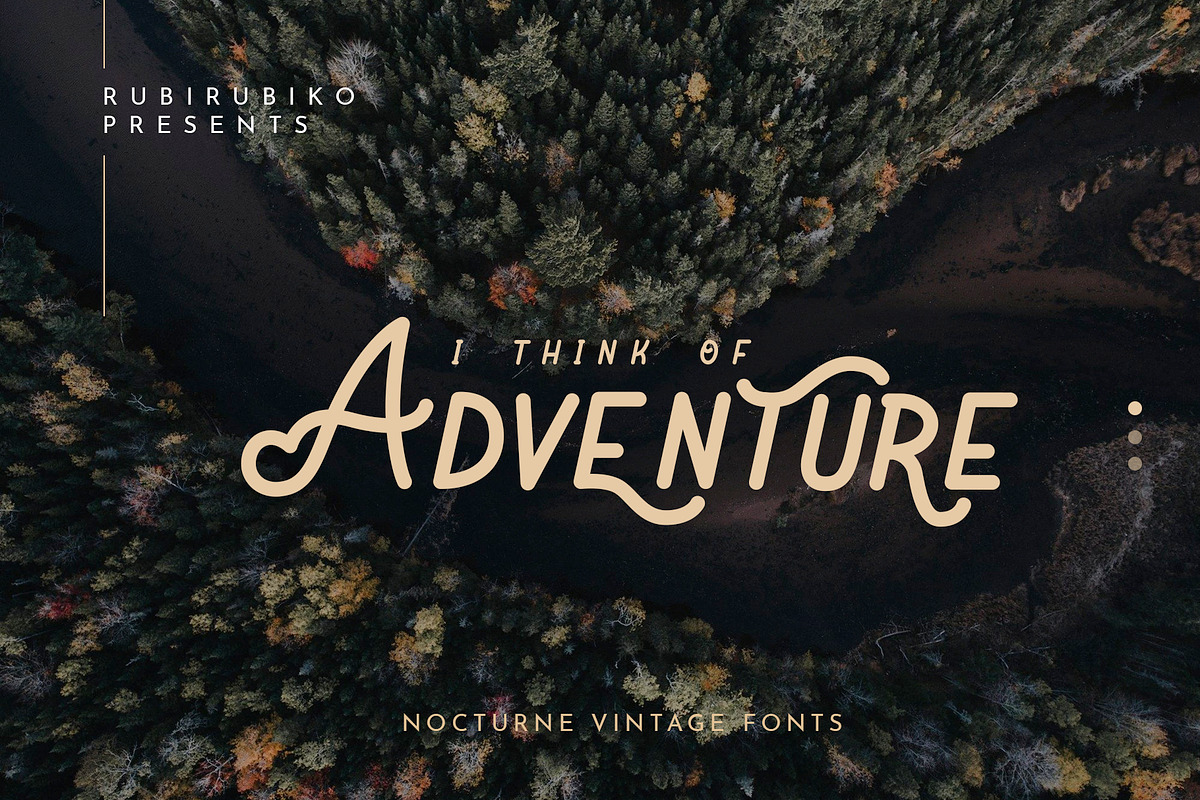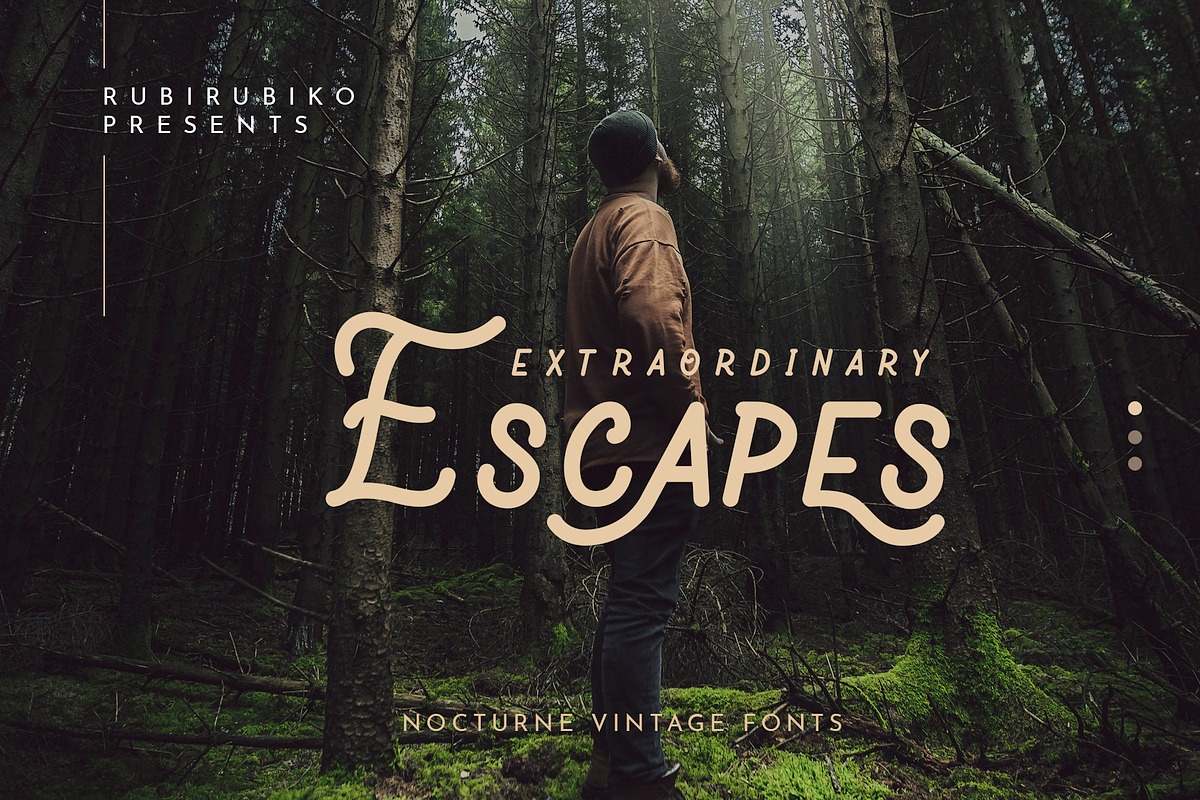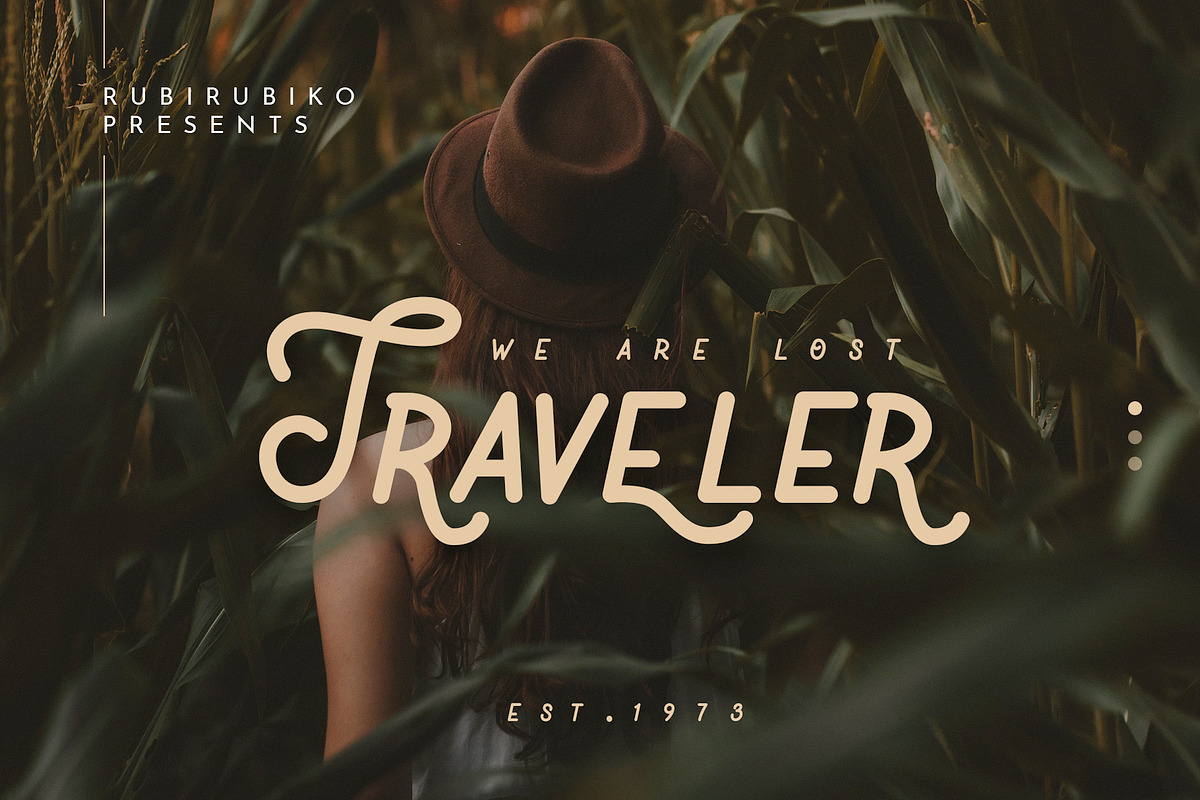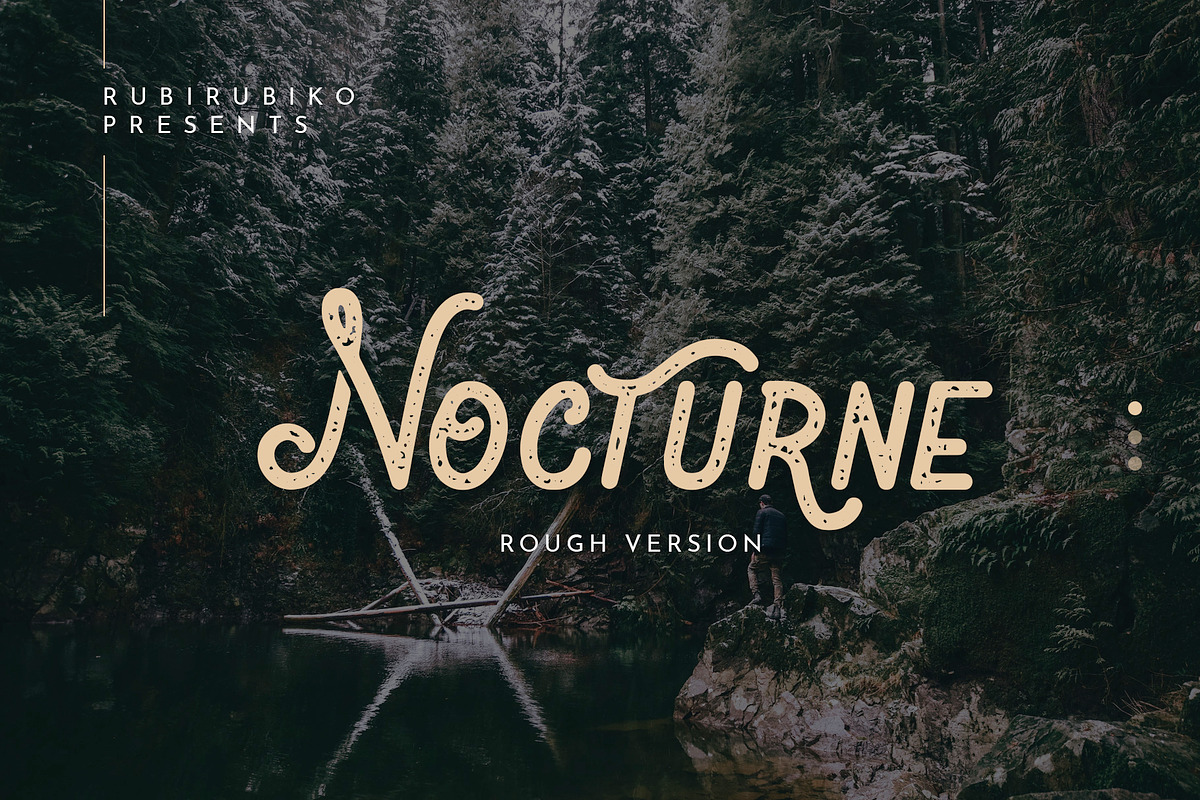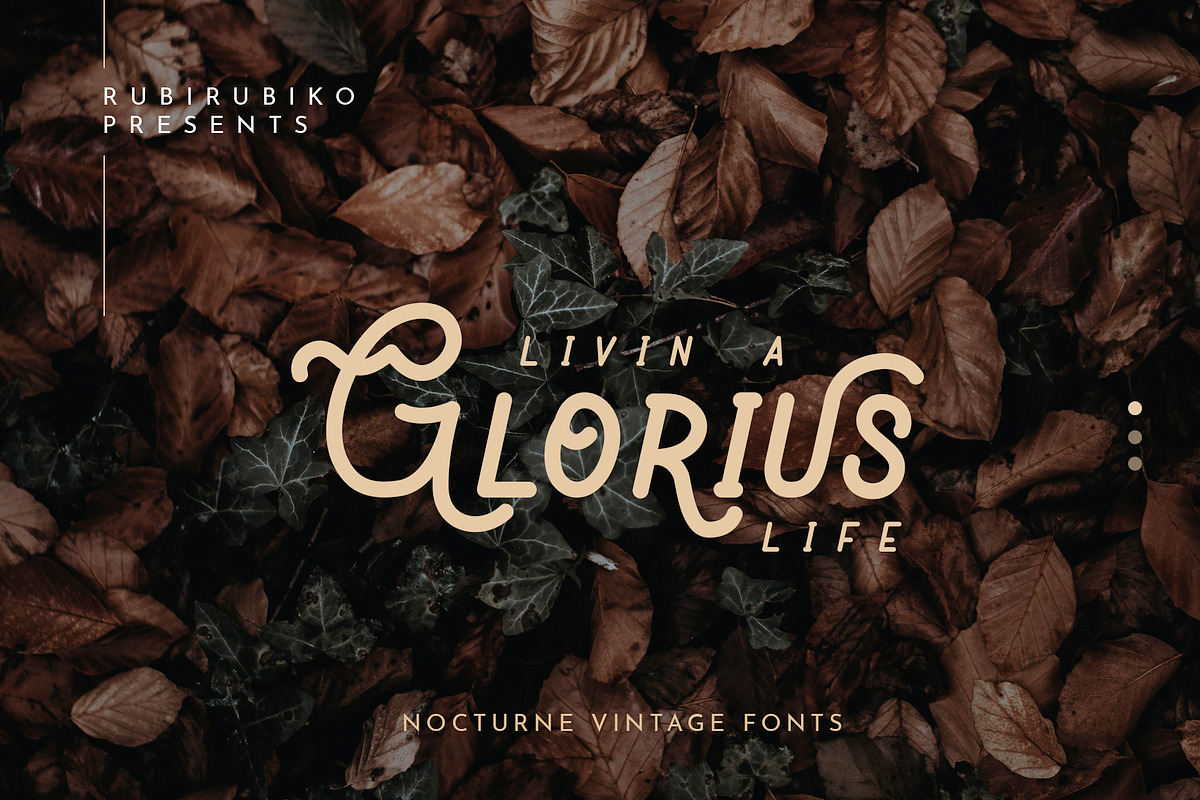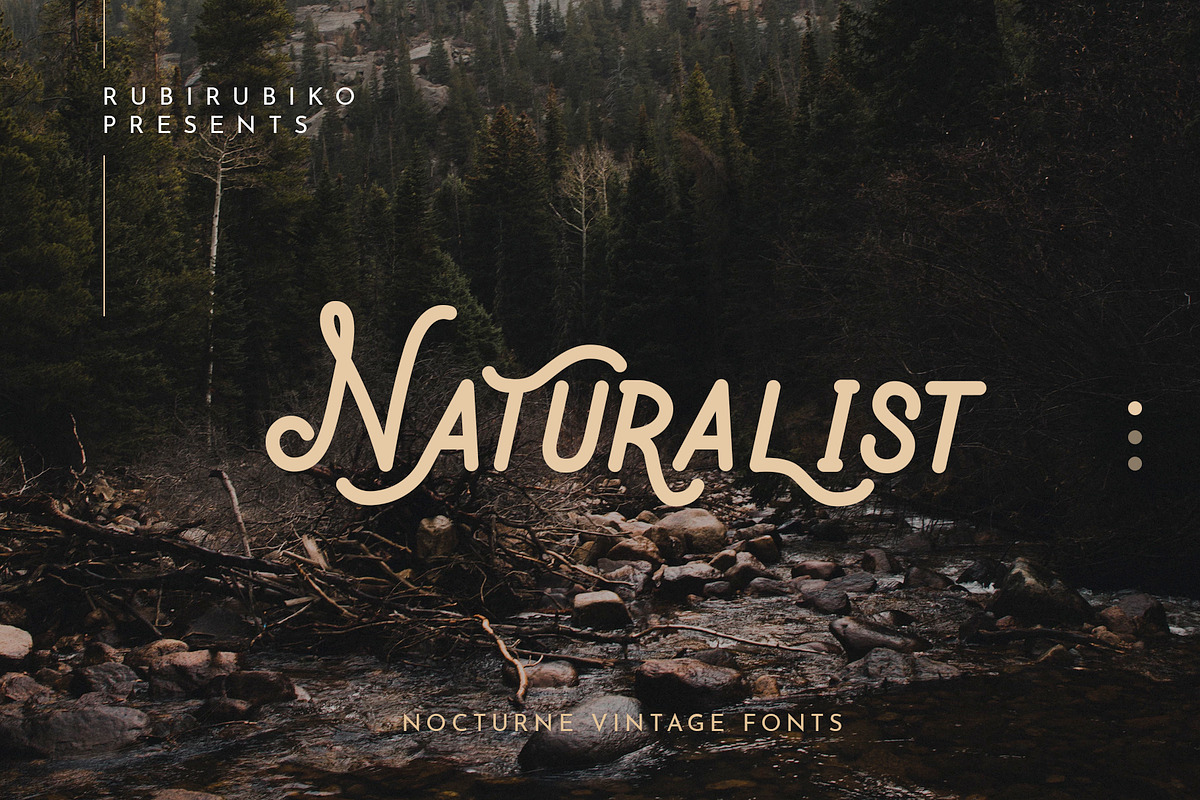
Nocturne - Vintage Fonts
Create a Extraordinary Typography / lettering results by using Nocturne - Vintage Font. Best match for logos, header, Titles, Prints & other Creative process possibilities.
Ton of glyphs included
Good pair with other font
Nocturne - Vintage Fonts by rubirubiko fits naturally into Branding, posters, packaging, typography.